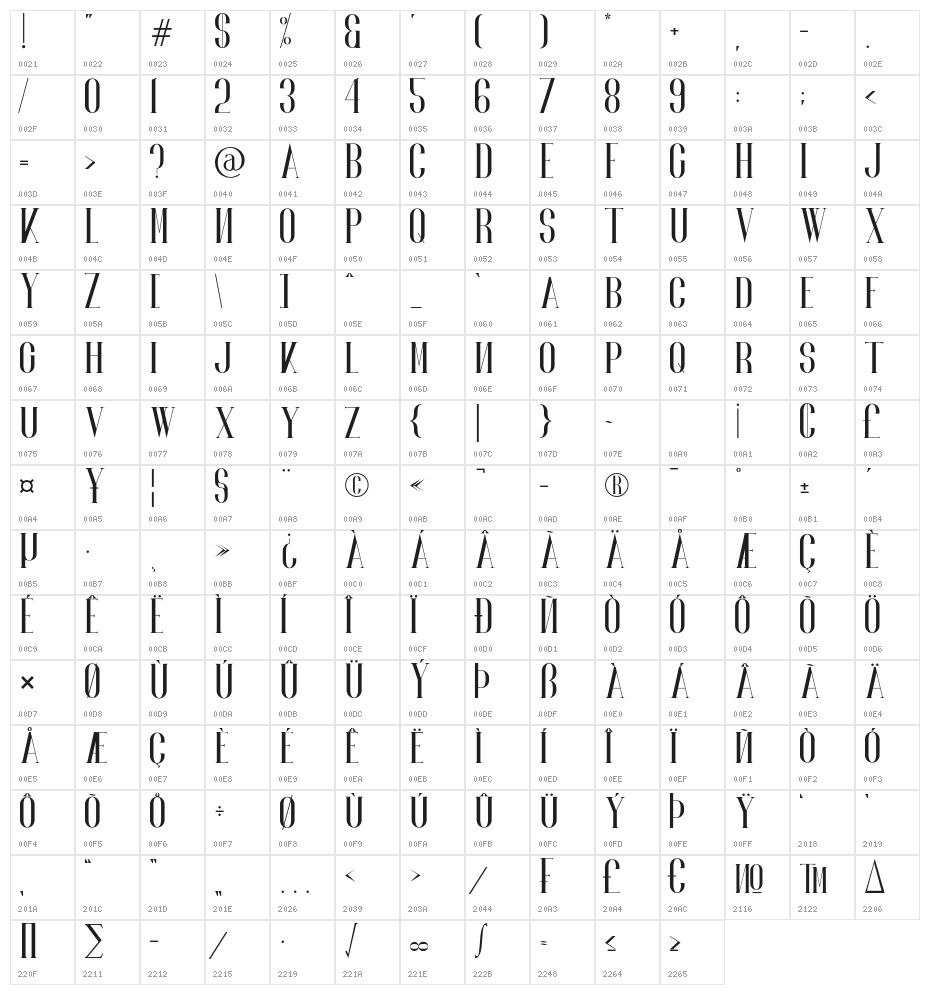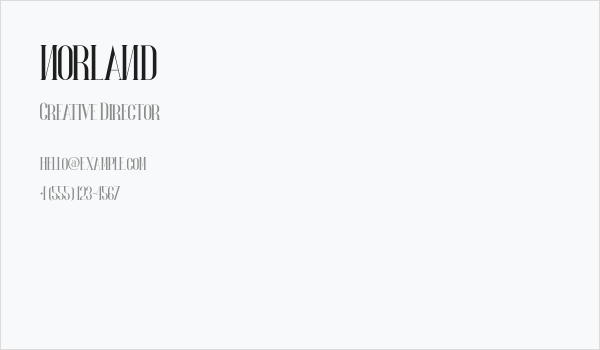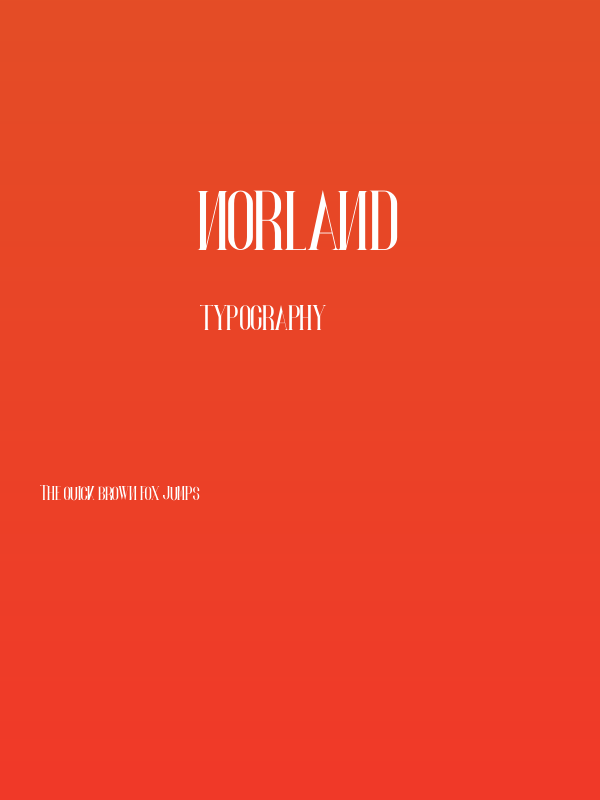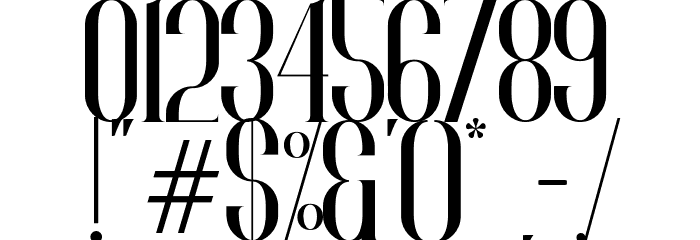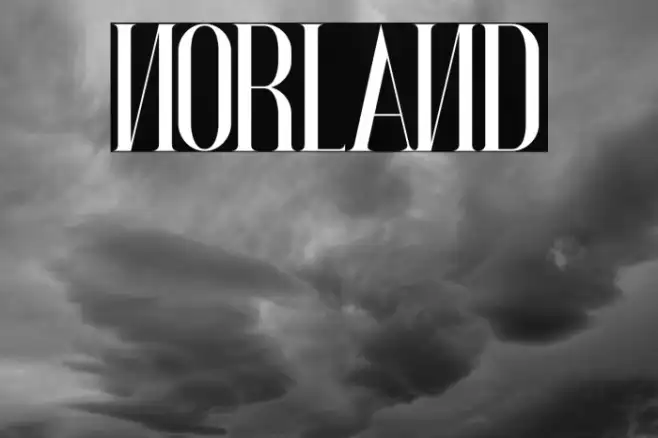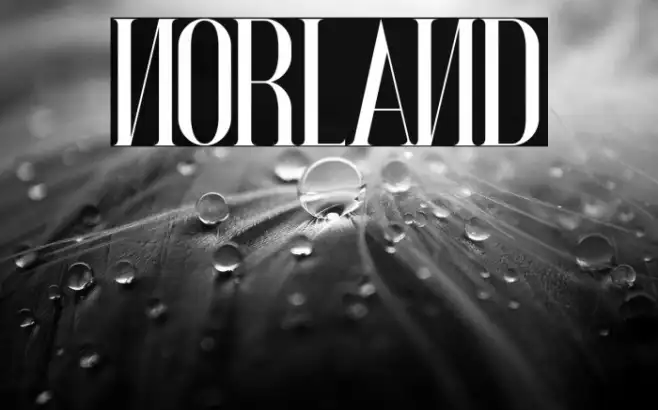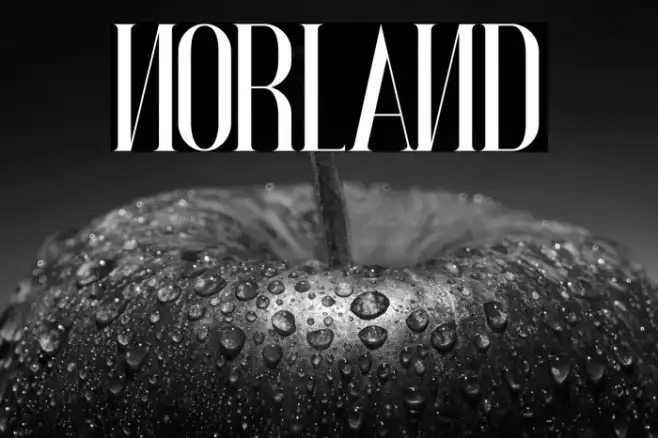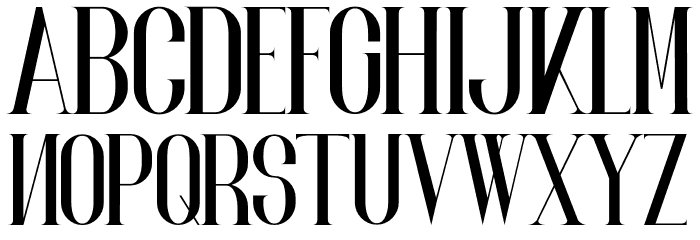
NORLAND Font
NORLAND Description
This font features a striking and elegant design with tall, narrow characters that exude sophistication and modernity. The uppercase letters are particularly elongated, giving a sense of grandeur and formality. The strokes are thin with high contrast, creating a dramatic effect that draws attention. The numerals and special characters maintain the same tall and slender aesthetic, ensuring consistency across all text. This font is ideal for making a bold statement while retaining a sense of elegance and style.
| Overall Style | Modern, Elegant |
| Proposed Projects | Perfect for luxury branding, fashion magazines, high-end product packaging, and elegant invitations. |